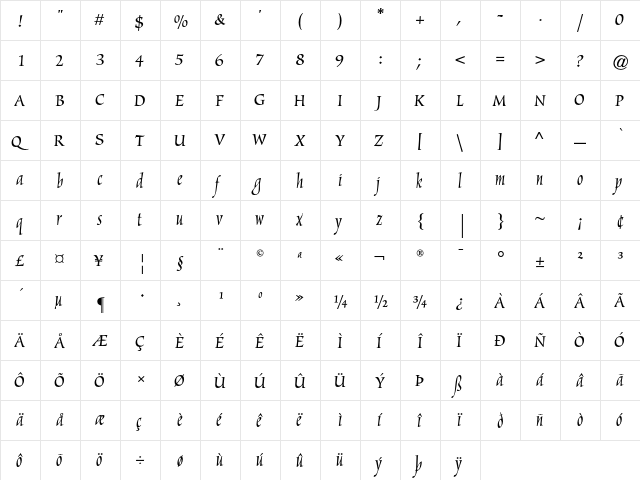
Marigold AT Regular
Design Context for Marigold AT Typeface
Marigold AT is a composed and adaptable typeface that performs quietly and consistently across a wide range of design contexts.
First published in 1991, this typeface is available in OpenType (OTF) format.